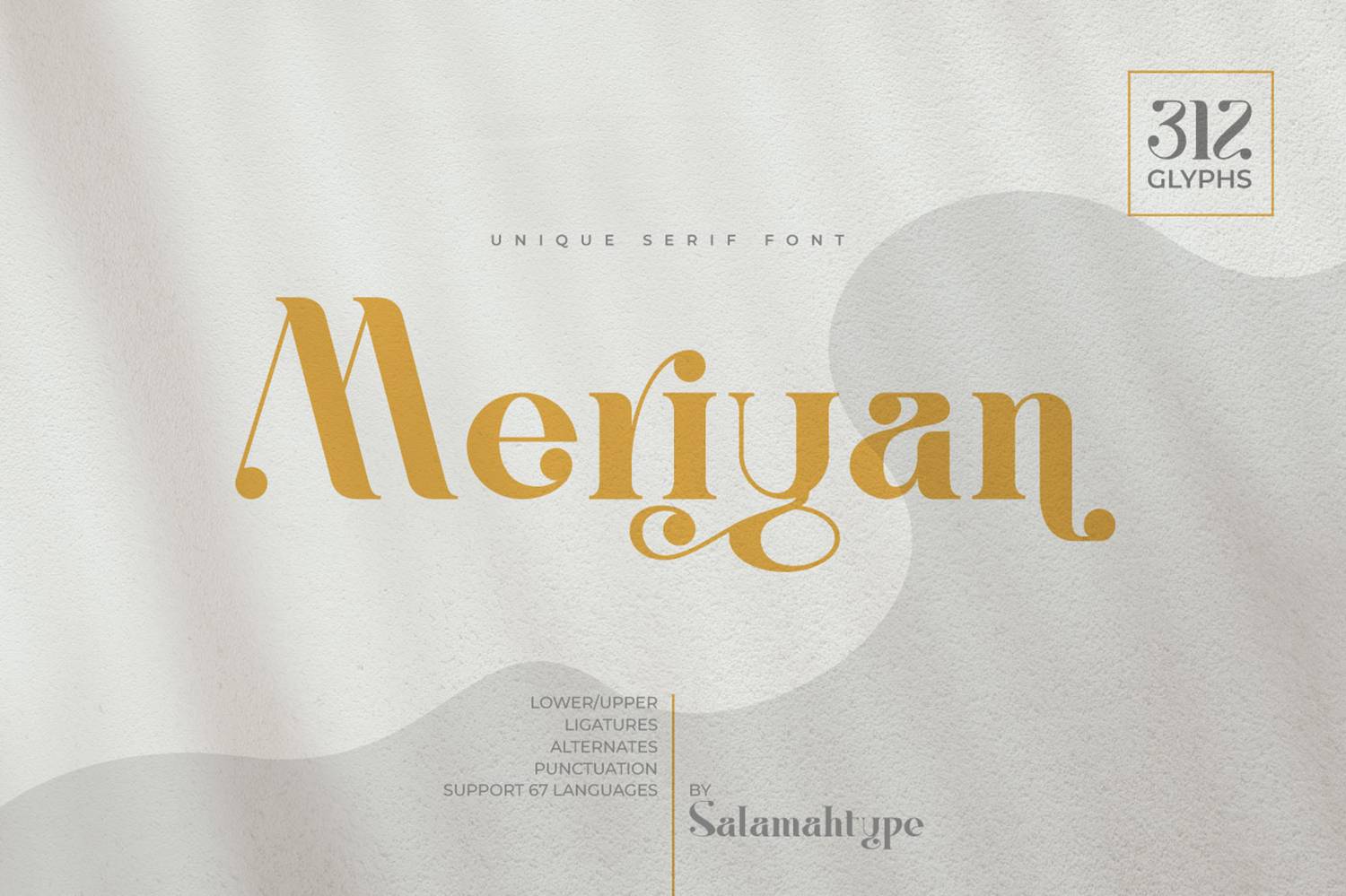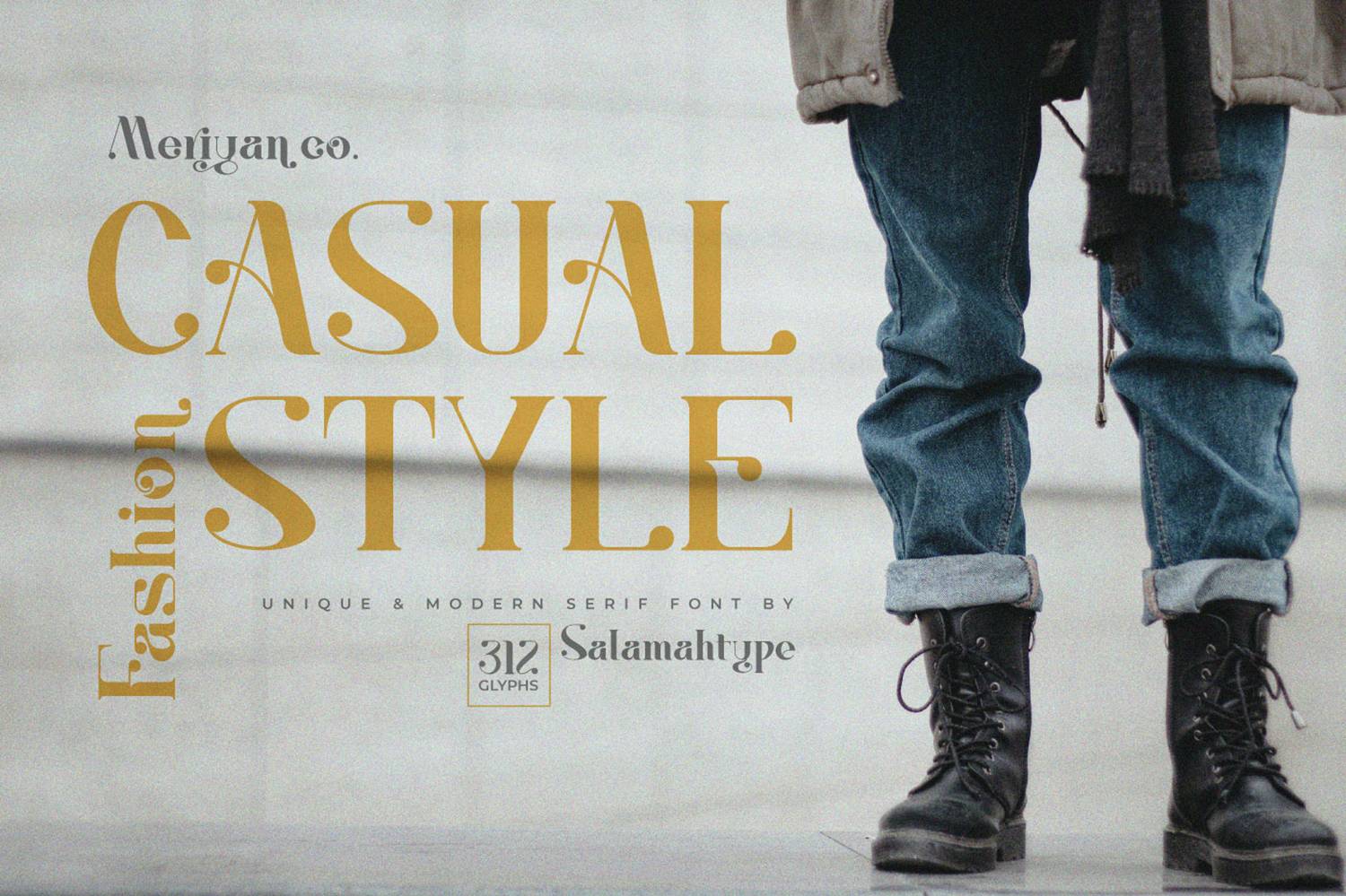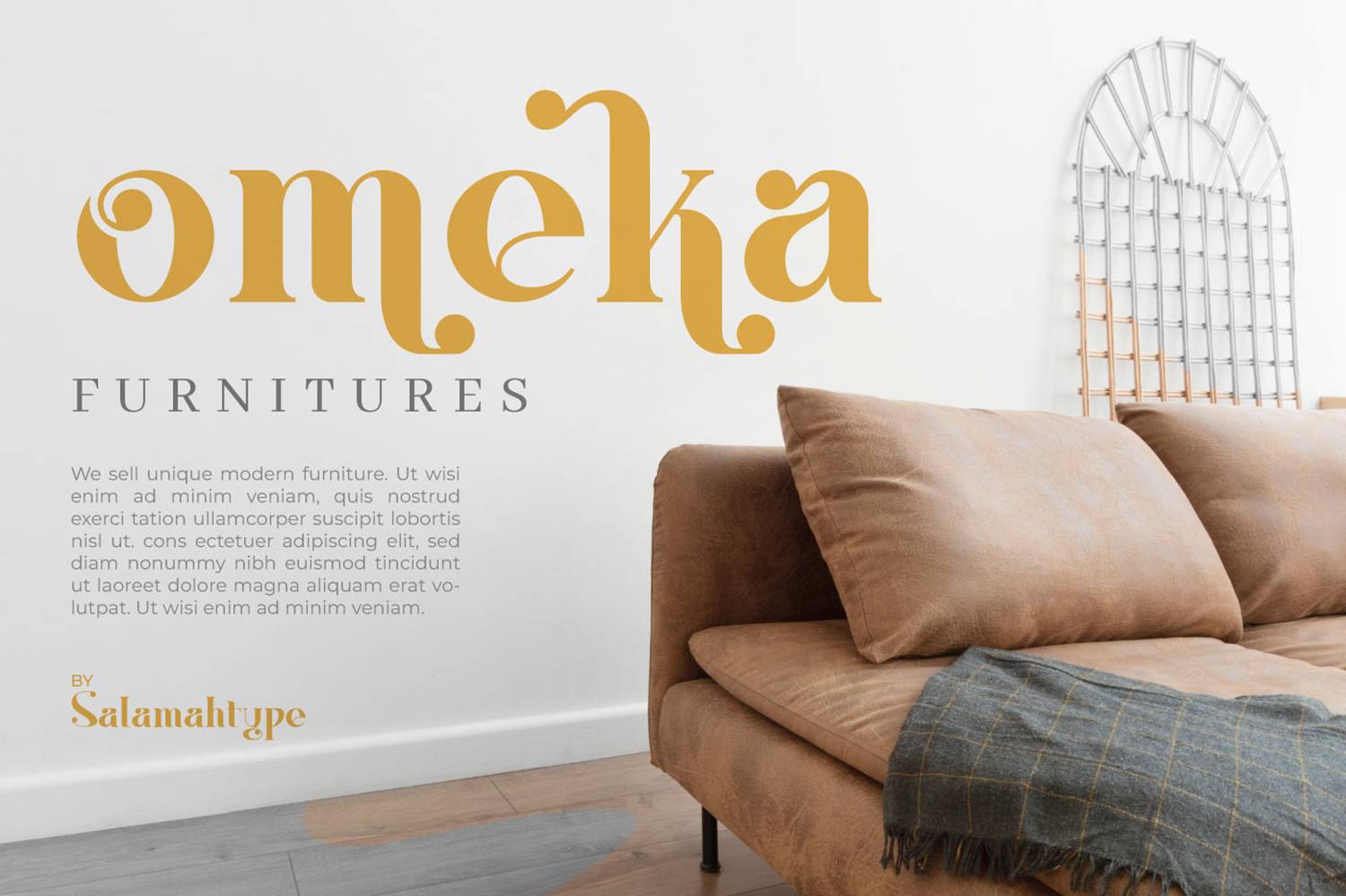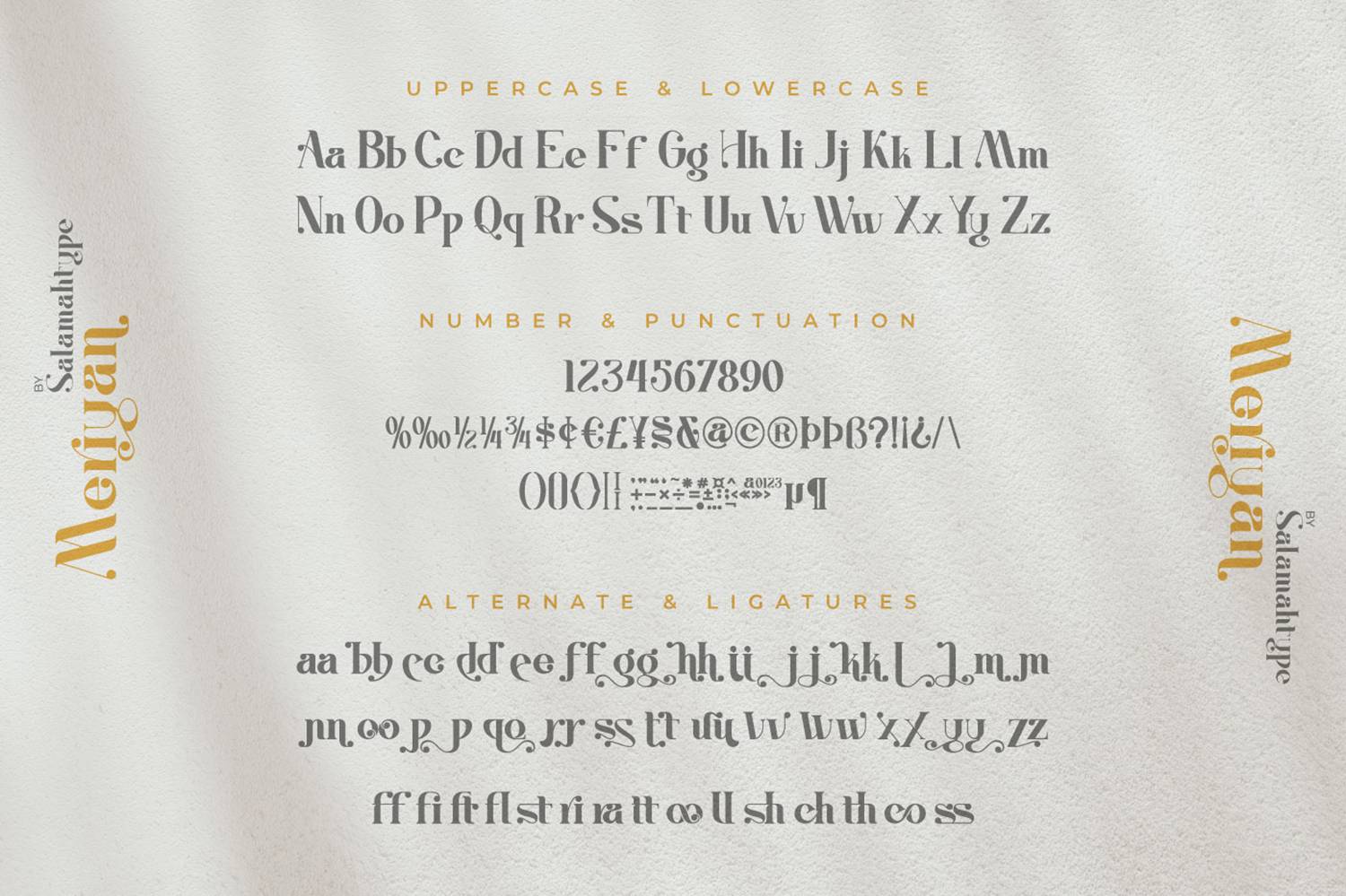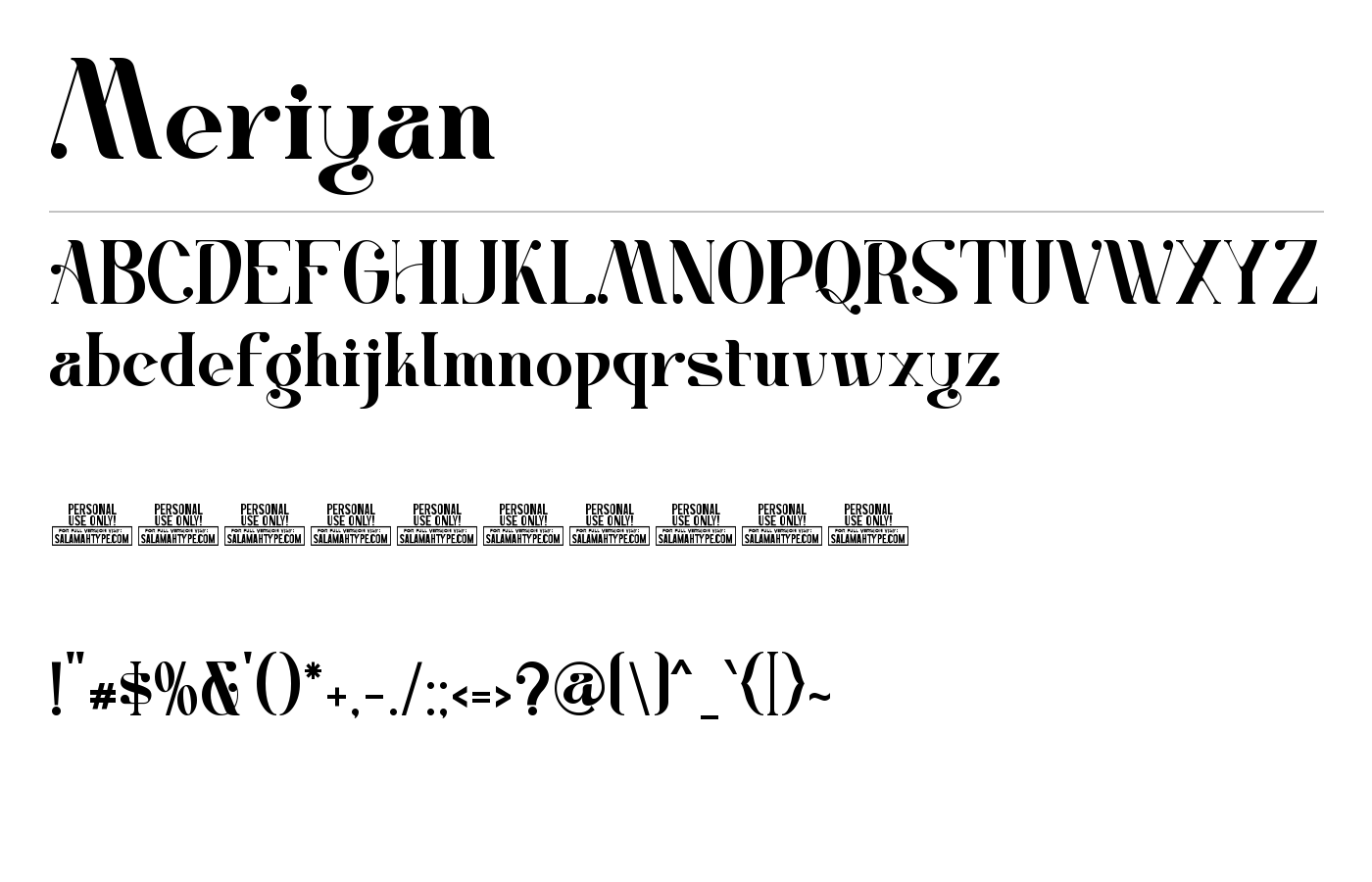
Meriyan is a stylish serif font that combines high contrast strokes with elegant, distinctive curves and ornamental details, giving it a refined and sophisticated look. Its unique letterforms and delicate flourishes make it perfect for luxury branding, editorial headlines, and creative packaging where a touch of elegance and individuality is desired. This font works especially well in display settings, adding charm and personality to designs without sacrificing readability.
Meriyan Font
About Meriyan Font